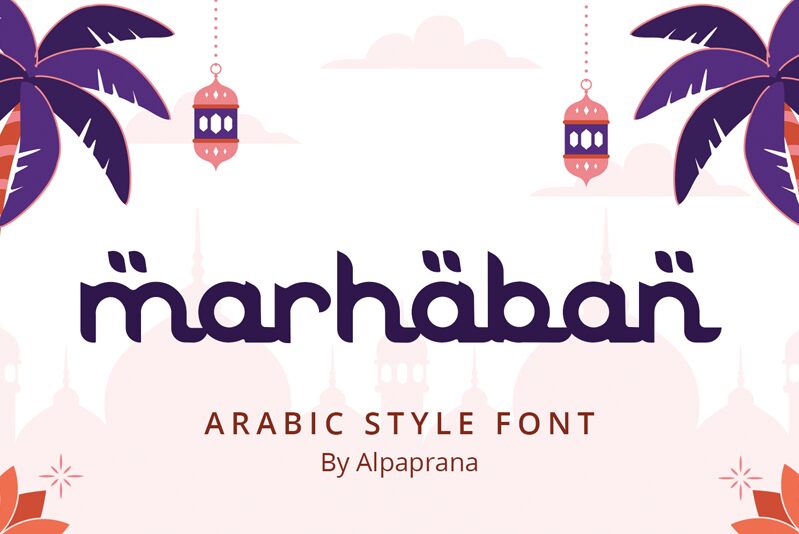
Marhaban
Marhaban is a captivating Arabic font that emanates a harmonious balance between tradition and modernity. Designed by Alpaprana Studio, this typeface showcases a distinctive blend of elegant curves and sharp angles, creating a visually striking and sophisticated aesthetic. Its calligraphic influences are evident in the fluid, interconnected letterforms, while the clean, contemporary lines lend it an air of timelessness.
Marhaban's versatility makes it a compelling choice for a wide range of design applications, from elegant branding and editorial layouts to dynamic digital interfaces and captivating cultural narratives. Its refined elegance and impactful presence effortlessly command attention, making it a valuable asset in the realm of Arabic typography.